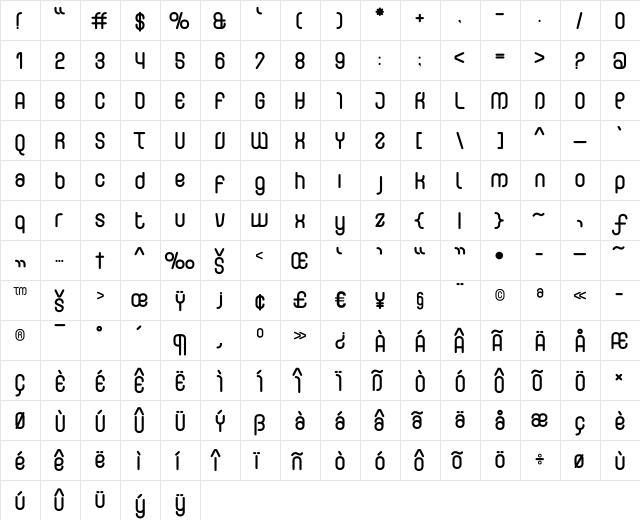
Curvature-Rounded Regular
Design Context for Curvature-Rounded Typeface
Curvature-Rounded uses gentle rounded endings to create a warm, inviting typographic personality — less corporate than geometric sans, more refined than playful display fonts.
Well-suited to UI design, mobile interfaces, and any brand that wants approachability without sacrificing clarity.
Font Pairing: Pairs well with a rounded or humanist sans for body copy, maintaining the friendly tone without relying on Curvature-Rounded to carry extended reading.
Pro Tip: Use Curvature-Rounded for UI elements, app interfaces, and anywhere a friendly, approachable tone needs to be maintained without sacrificing clarity.